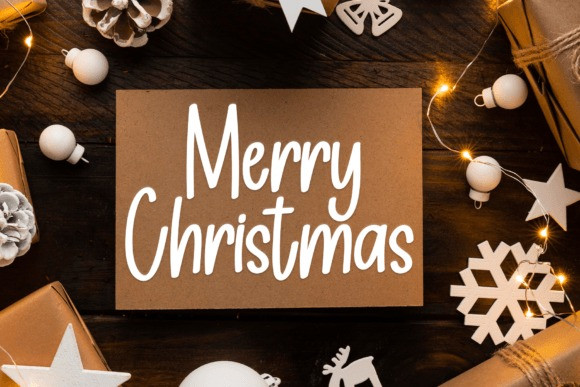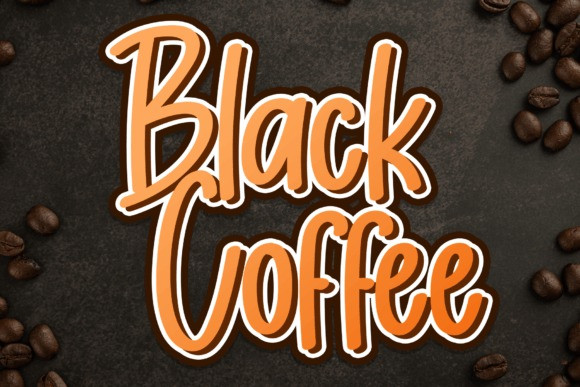
Black Coffee Typeface
Black Coffee Typeface is a stylish handwritten font that exudes elegance and charm. With its flowing, slightly slanted letters and a touch of vintage appeal, it’s perfect for adding a warm and personal touch to your projects, evoking the cozy atmosphere of a coffee shop on a rainy day.